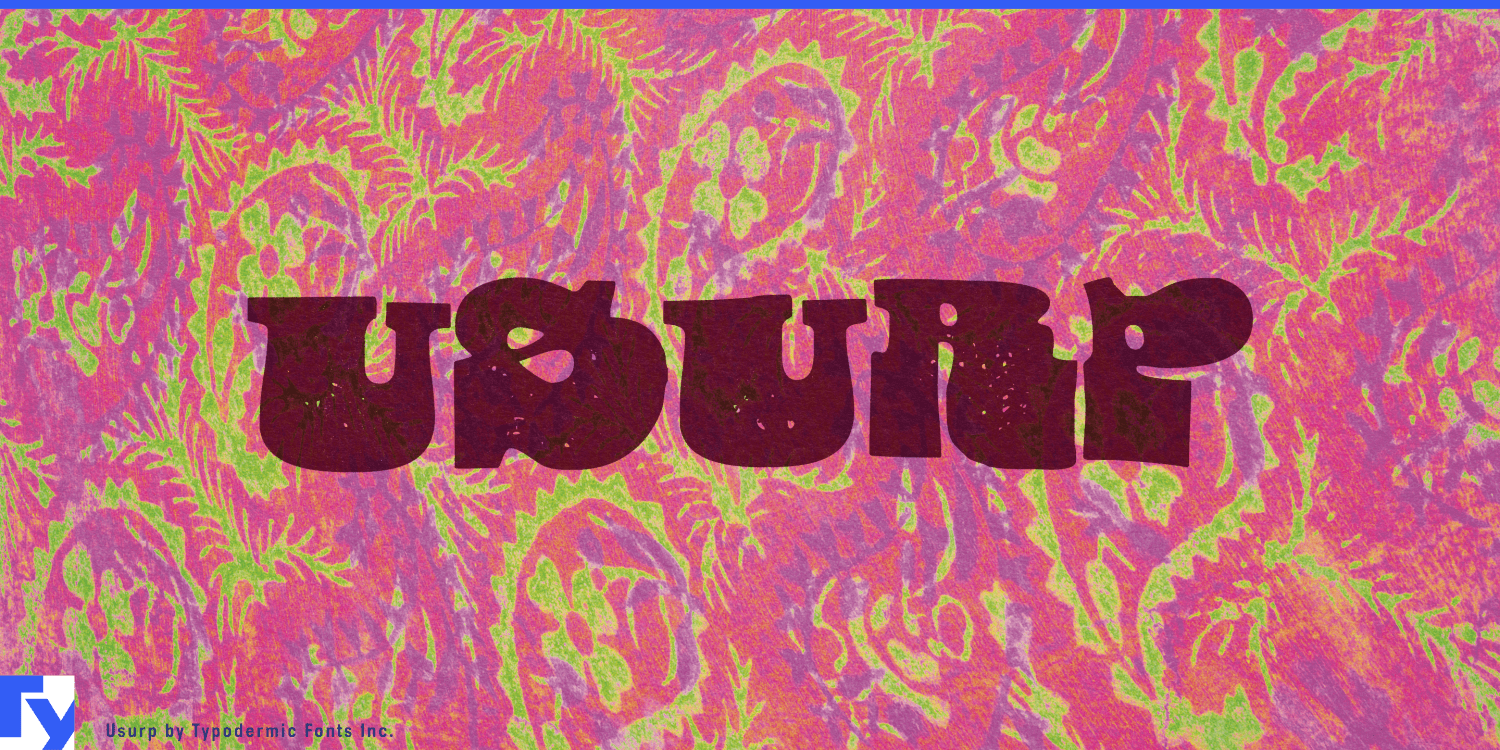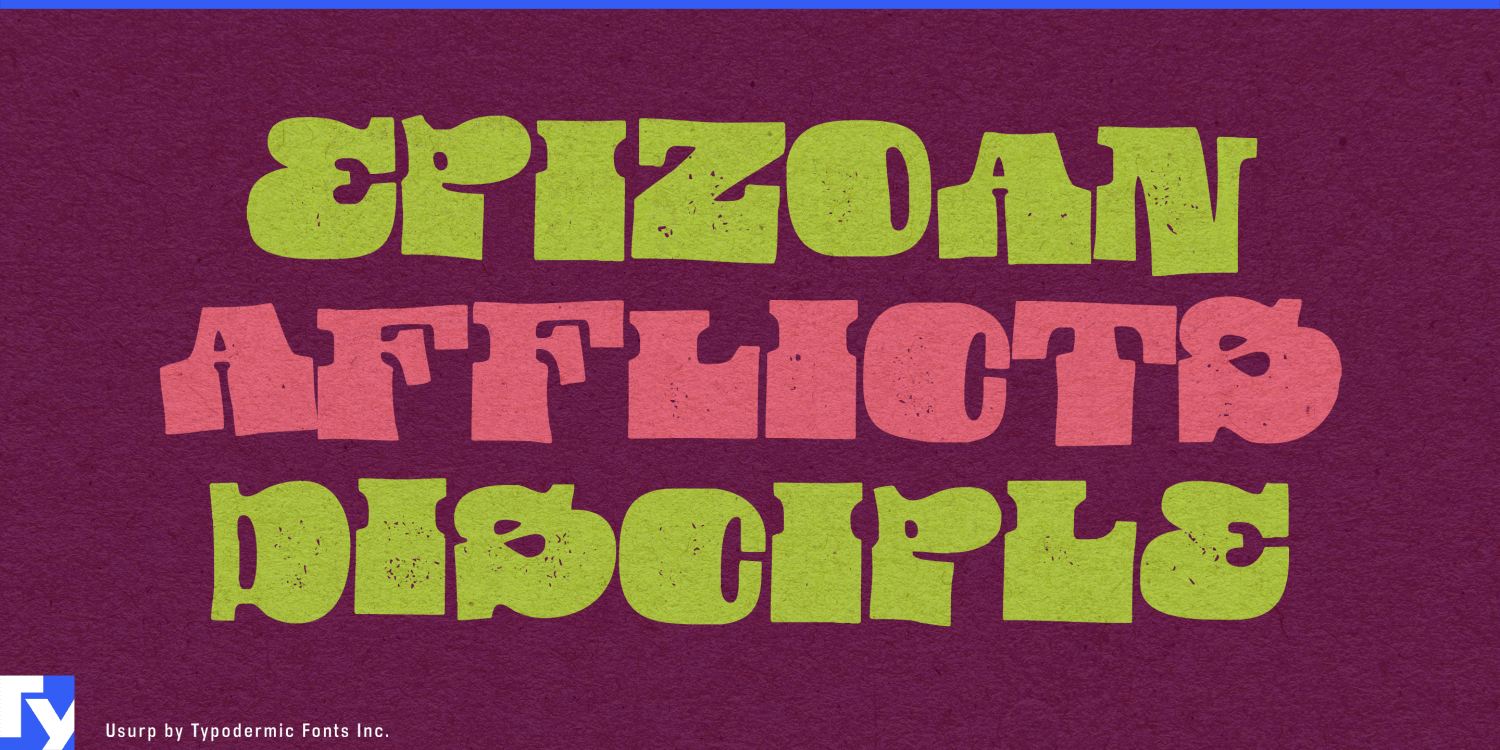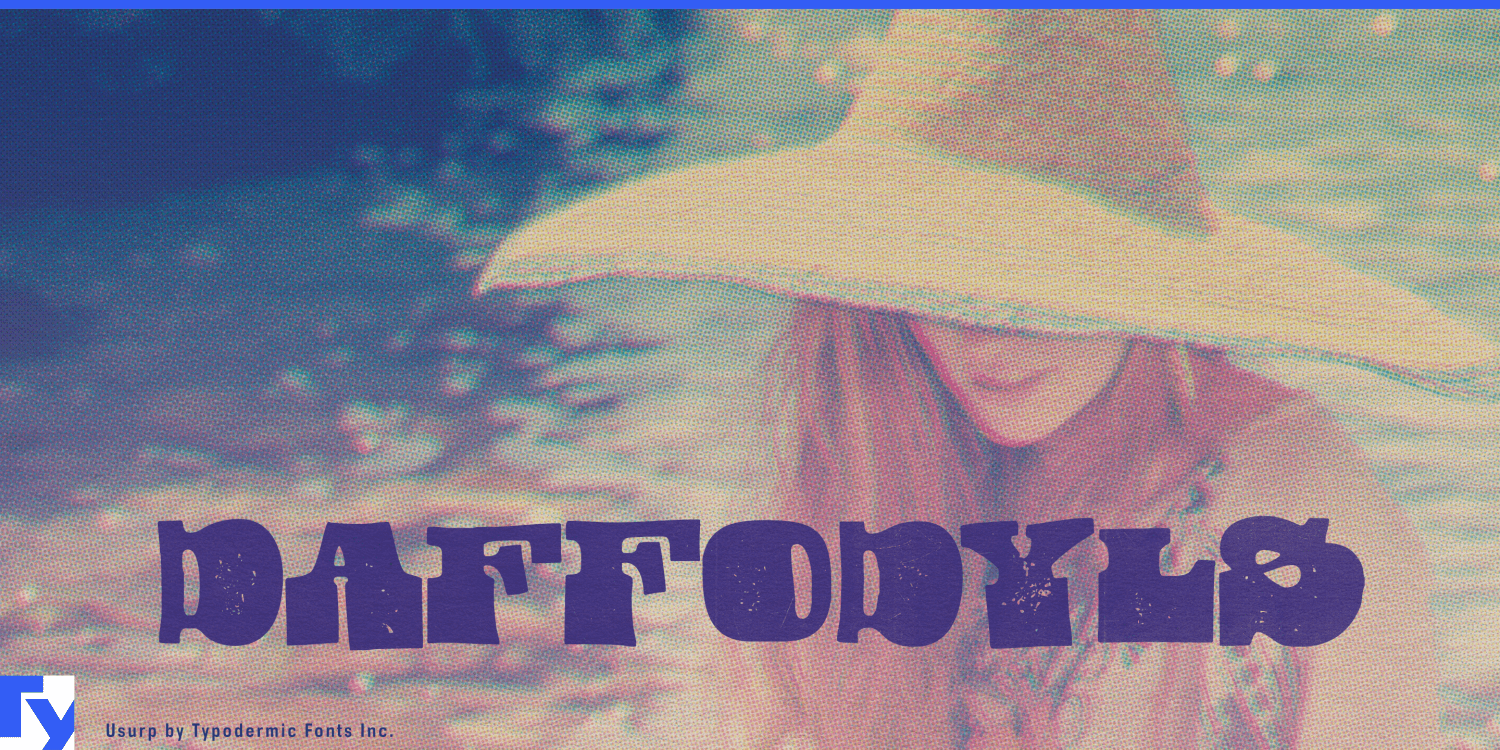
Dive into the psychedelic realm with Usurp Typeface, a bold display font that pushes the boundaries of conventional design. With its surreal cut-out letterforms and audacious slab serifs, Usurp injects a dose of hallucinogenic elegance into any project,…